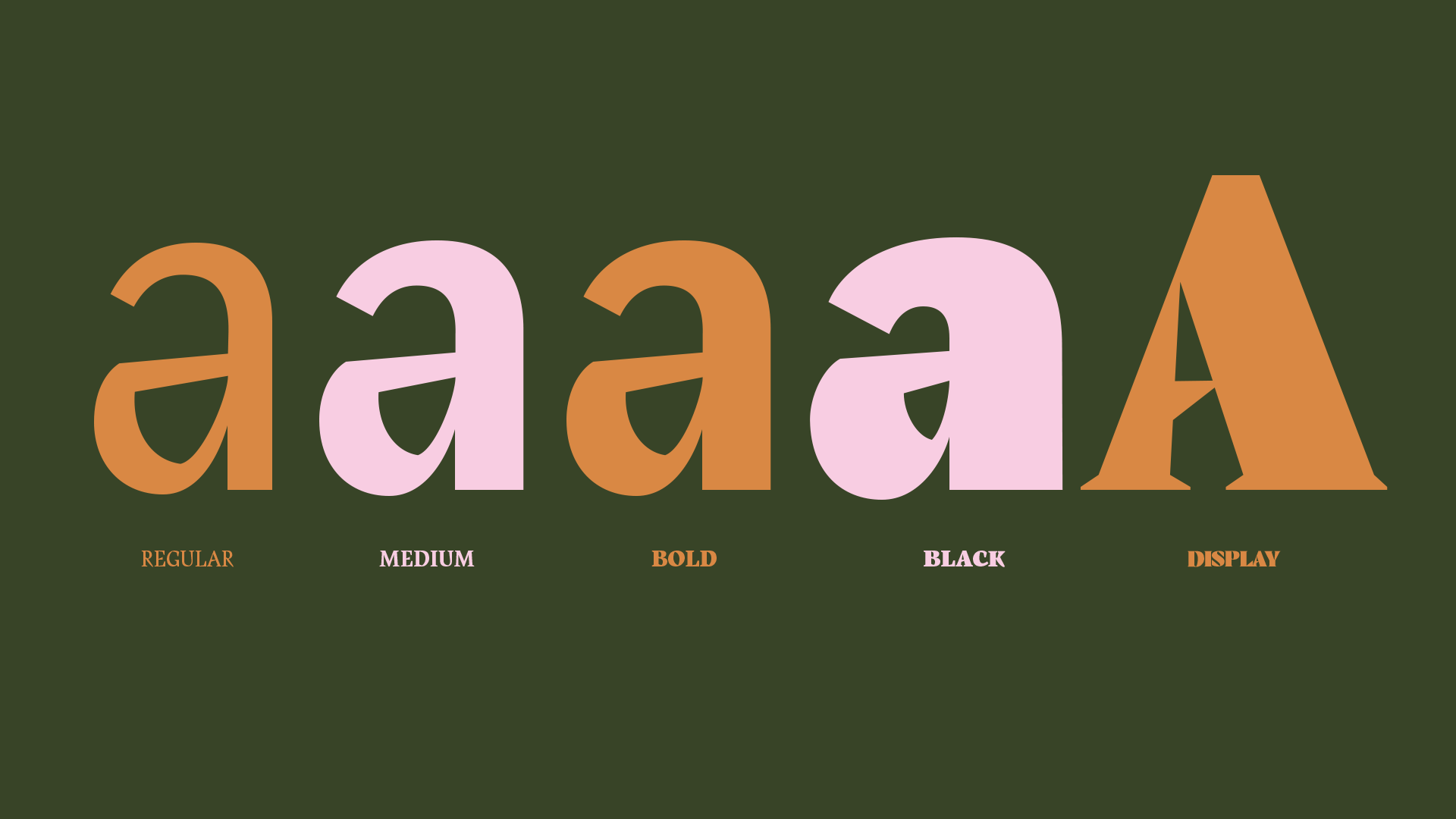
DamedePic
Dame de Pic is an original and custom-designed typeface for the brand “Anne-Sophie Pic”. It is made up of sharp, dynamic and elegant shapes that recall the signature dish of the chef: the BERLINGOTS. This character is influenced by the feminine energy diffused by Anne-Sophie Pic’s dishes and their precise and elegant dressage.
Note the phonetic game with the name “Pic” and “pique”. The conductive thread of this specimen, the spicy triangle, is subtly found in the design of shapes and counterforms.
Dame de Pic is a complete family of 3 styles: Regular, Sans Serif, Display and 4 weights.